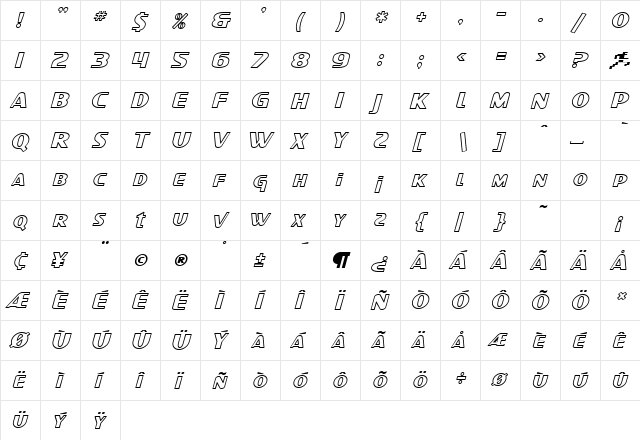
SF Intellivised Outline Italic
Design Context for SF Intellivised Outline Typeface
SF Intellivised Outline brings ornamental detail and strong personality to headlines and identities, where visual impact matters more than quiet functionality. The dynamic lean of this cut emphasises speed and emphasis in any layout.
Font Pairing: Pair with a clean neutral sans-serif for body copy to let SF Intellivised Outline's character lead without overwhelming the composition.
Pro Tip: Treat SF Intellivised Outline as the centrepiece of your typographic hierarchy. One strong heading set in a decorative face can carry an entire layout.